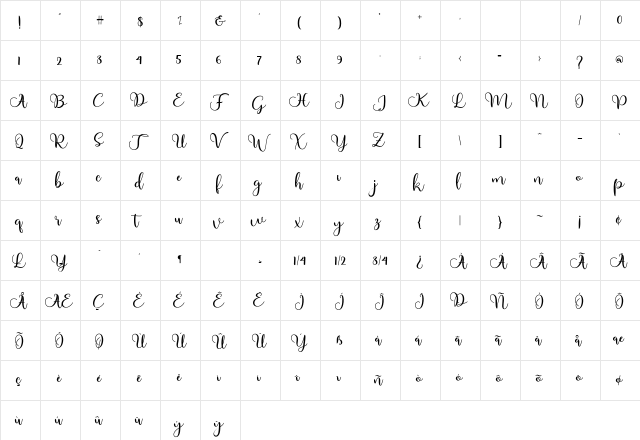
Adinda Regular Font Preview
Adinda Regular
Adinda Regular Font Details
| Foundry | WDfont |
| Designer | Captain Jack |
Design Context for Adinda Typeface
Adinda is a composed and adaptable typeface that performs quietly and consistently across a wide range of design contexts.